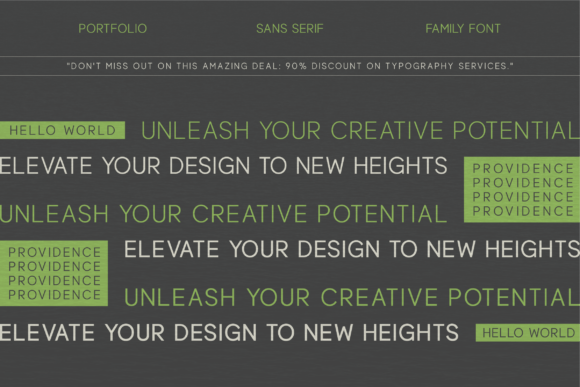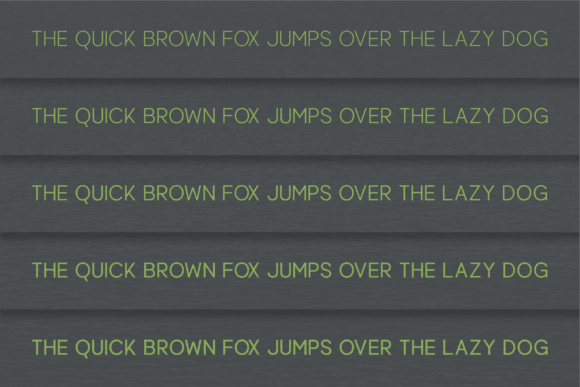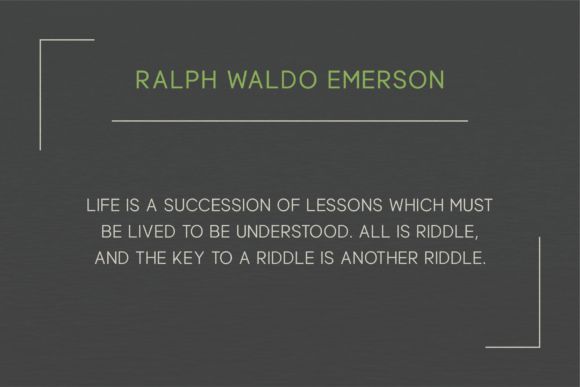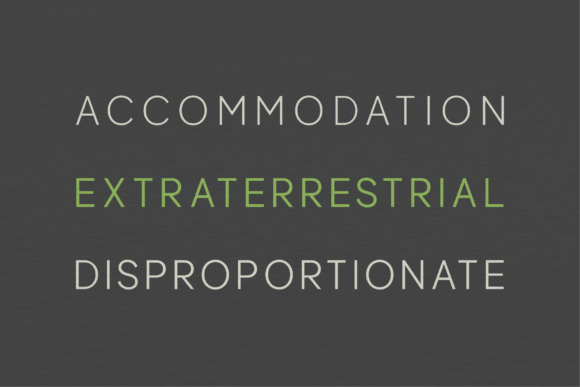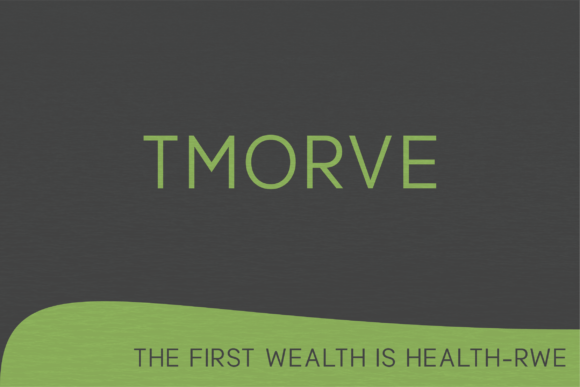
Introduction to Providence Font
Introducing the remarkable Providence Font Family – an epitome of sophistication and streamlined design.
This refined sans serif font family comes with five distinct weights, an eloquent blend of contemporary aesthetics and opulence Masterfully sculpted with extreme precision, Providence Font is a game-changer, effortlessly elevating a variety of projects, from high-end magazine layouts to cinematic film posters, or refined logos.
Key Features of Providence Font
Providence Font offers exceptional quality and versatility, making it a valuable addition to your design toolkit. Whether you’re creating for personal projects or commercial use, Providence Font delivers professional results.